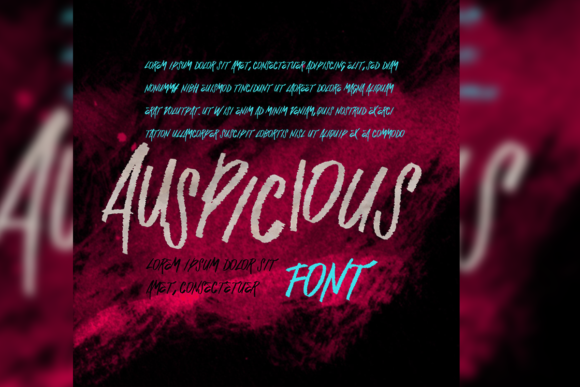
Introduction to Auspicious Font
Auspicious is a brand new stylish handwritten font waiting for you to use it in your next project.
Create beautiful logos, posters, headlines, social media posts and much more with this amazing new font .
Key Features of Auspicious Font
Why Choose Auspicious Font?
Auspicious Font offers exceptional quality and versatility, making it a valuable addition to your design toolkit. Whether you’re creating for personal projects or commercial use, Auspicious Font delivers professional results.